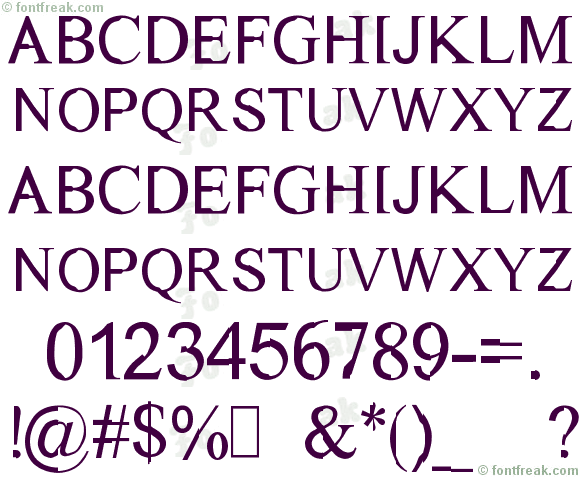
Dichotomy Regular
About dichotomy
The Dichotomy font by Digital Graphic Labs is a striking display typeface that captures attention with its unique character and bold design. Released in 1998, this freeware font is characterized by its sharp, angular forms and a balanced stroke weight that provides a contemporary feel. The visual style is marked by a moderate contrast between thick and thin lines, contributing to a dynamic aesthetic that is both modern and versatile. The spacing is well-considered, allowing for readability while maintaining an eye-catching presence.
This font is ideal for a variety of creative applications. Its bold nature makes it an excellent choice for movie posters, where it can command attention and convey a strong message. It also works beautifully for restaurant menus, adding a touch of sophistication and flair that enhances the dining experience. For graphic designers, the Dichotomy font is perfect for branding projects, helping businesses stand out in a crowded market. Additionally, its unique style lends itself well to creative invitations, making it an excellent option for weddings and other special events.
Targeting graphic designers, small business owners, and content creators, the Dichotomy font provides an opportunity to elevate visual communication. Its distinctive design allows users to create engaging and memorable content that resonates with audiences.